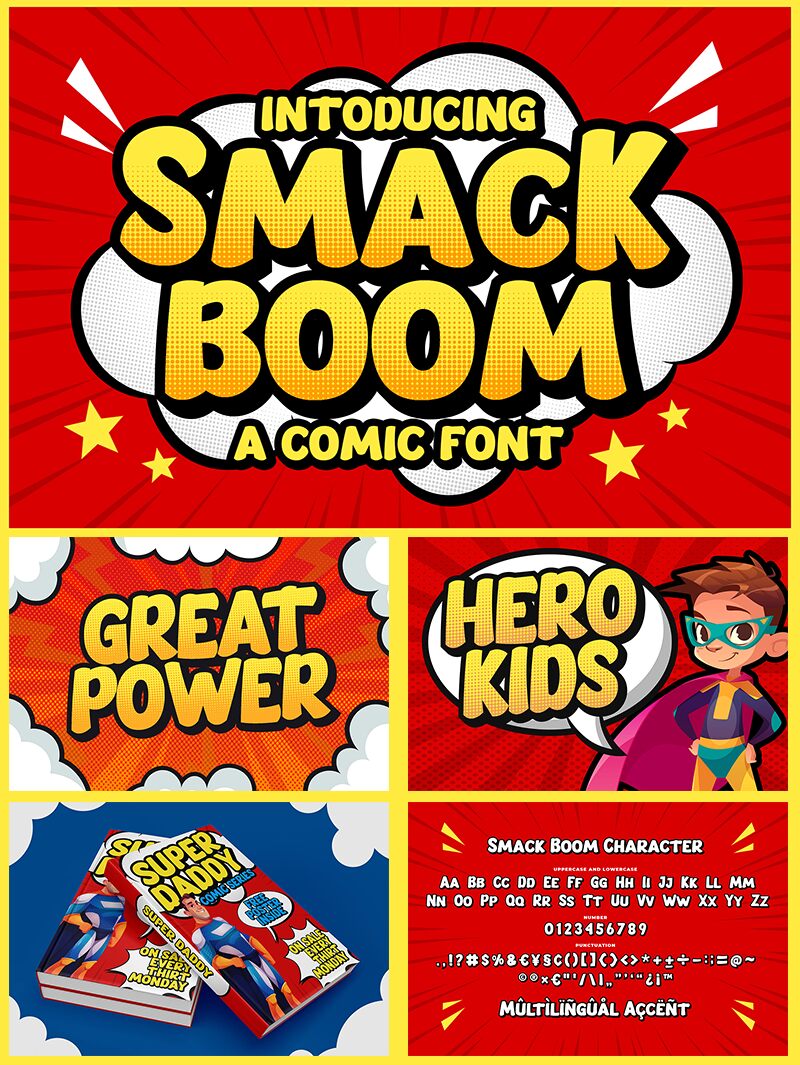
Smack Boom Regular
Smack Boom, created by Bangkit Tri Setiadi, is a bold display comic font perfect for creative projects. It brings a unique, loud and cheerful vibe to any design! Use it for logos, titles, posters and anything else that needs an extra special touch.